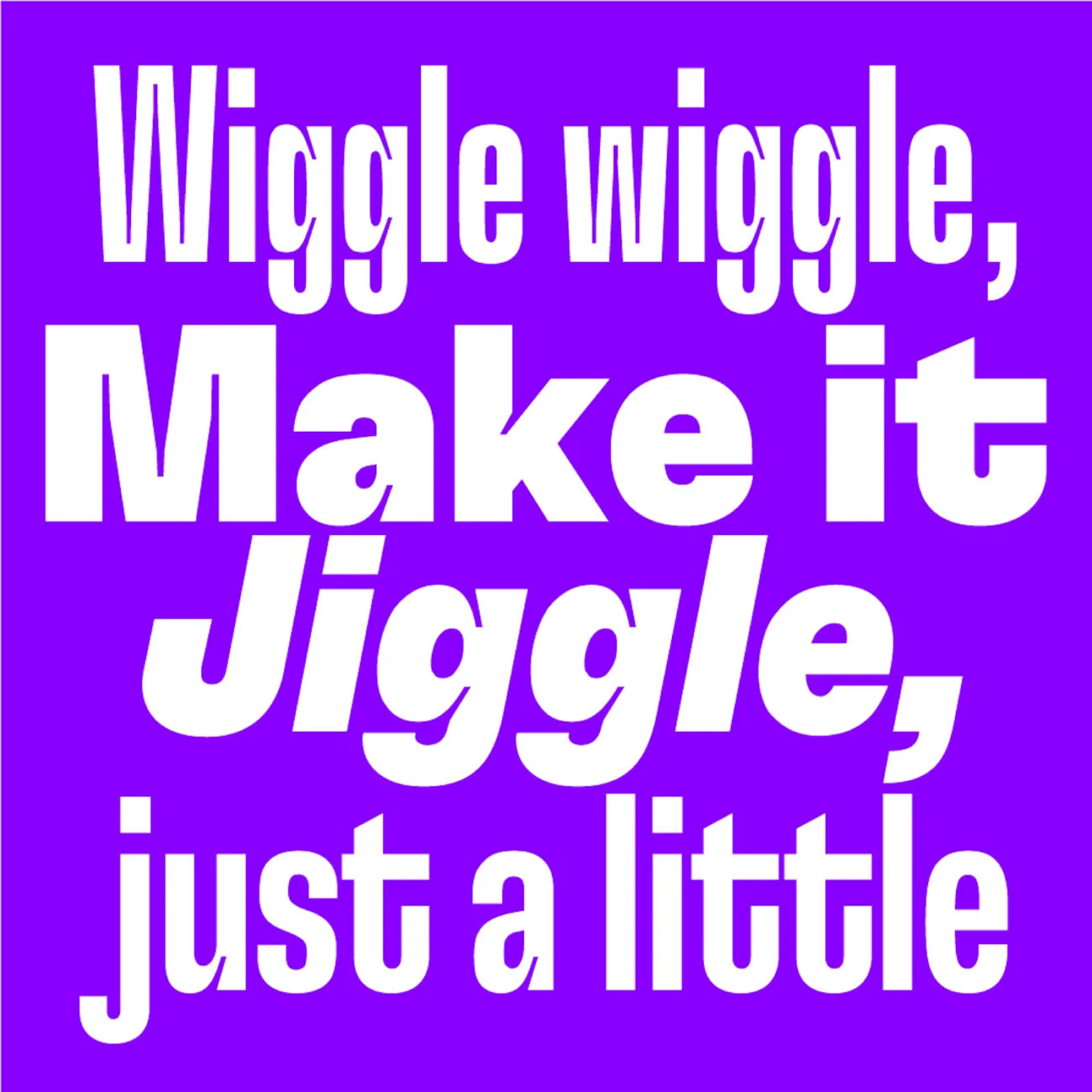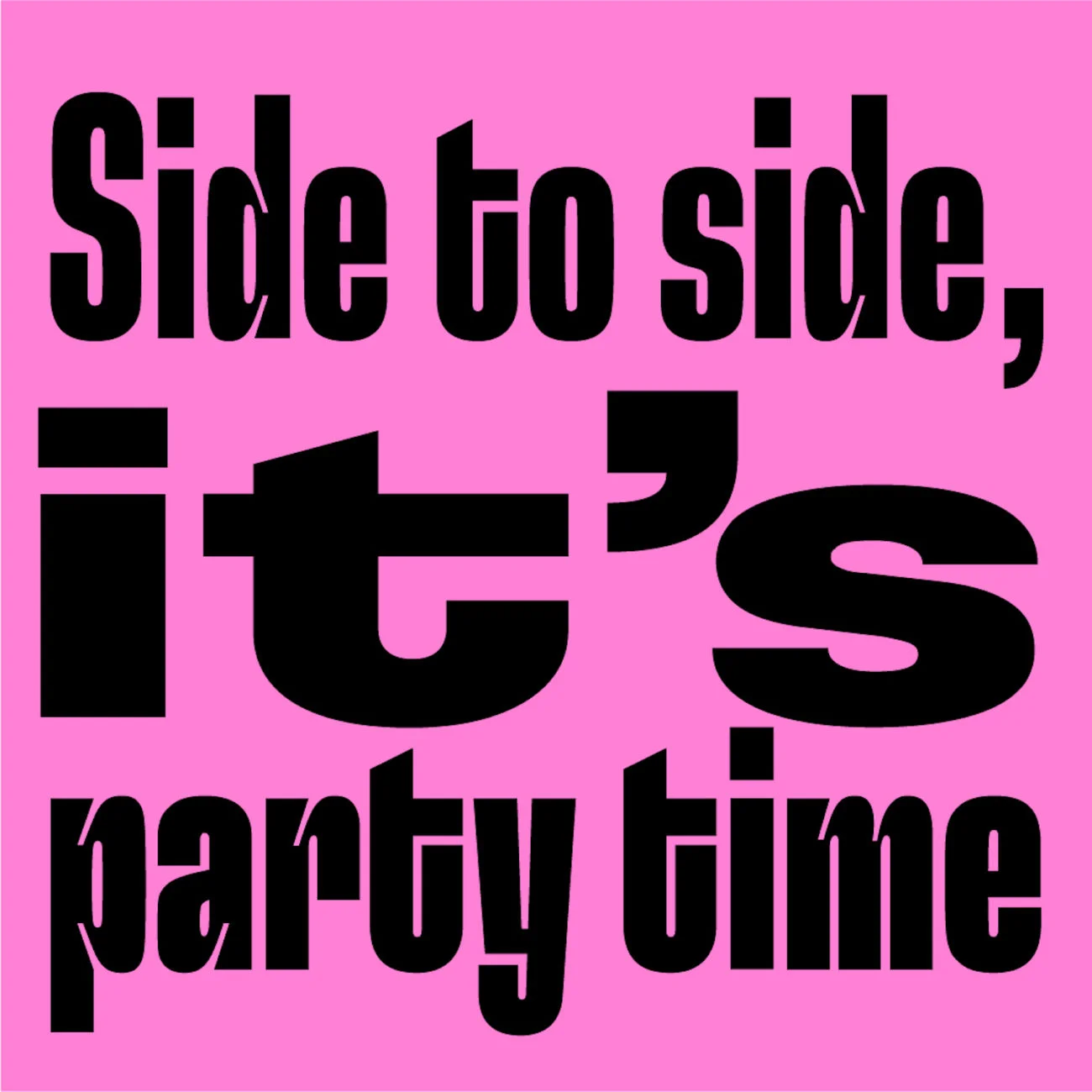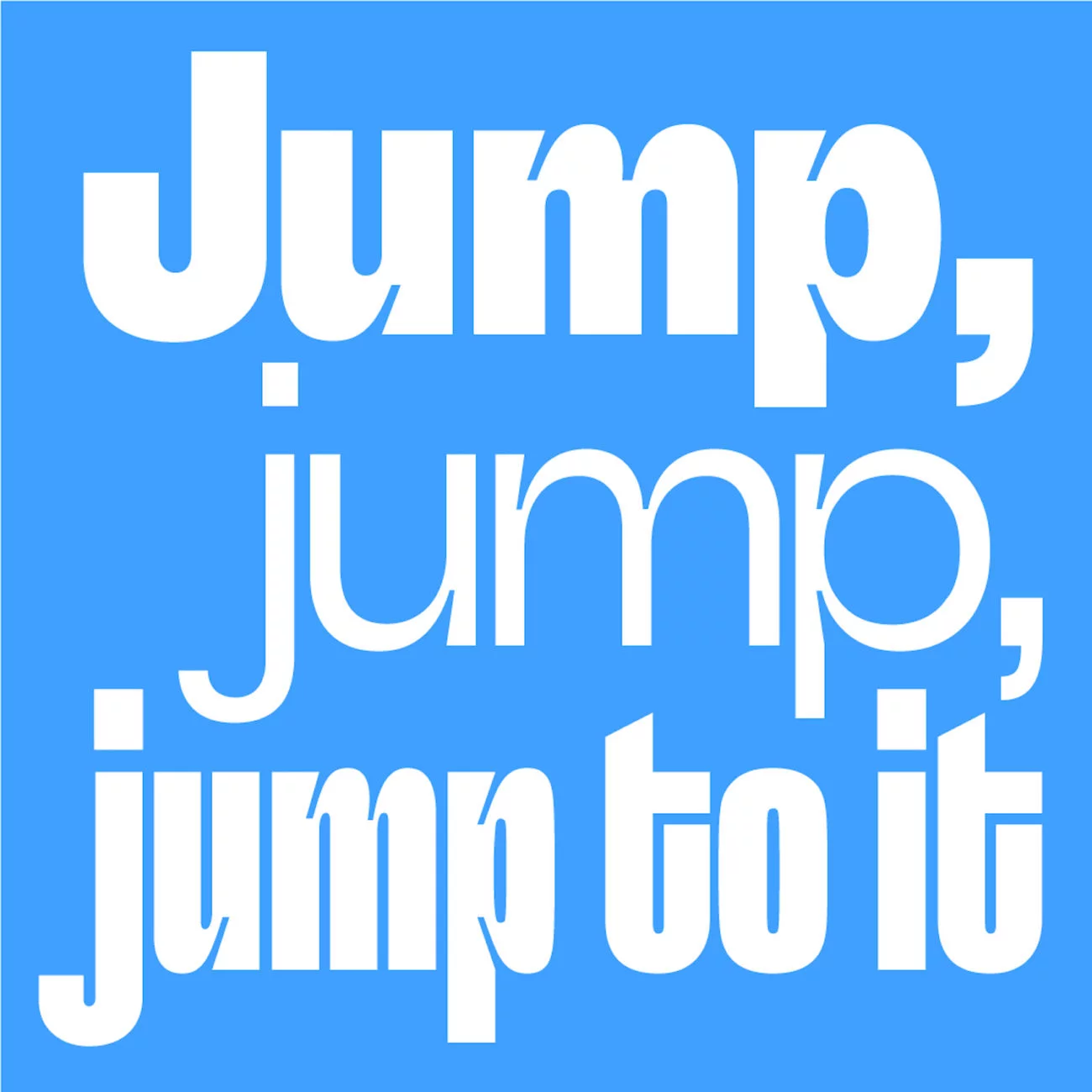
Offering a mix of original retail and custom fonts, Grilli Type (@grillitype) is an independent Swiss type foundry founded by Noël Leu and Thierry Blancpain in late 2009. Since, the founders have been joined by Reto Moser, Lind Haugaard, and Tobias Rechsteiner and often work in collaboration with other designers and creatives, too. Their latest release, a robust yet flexible grotesk with bags of character, GT Flexa, offers the fluidity and interactivity for a dynamic, joyful and responsive experience of typesetting; fitting a wide range of purposes and various aesthetic scenarios.
Designed by Dominik Huber with Marc Kappeler (2015 – 2020) and published by Grilli Type in July 2020, GT Flexa ‘embraces the idea of a fluid design space’, as opposed to ‘the traditional view of a typeface as a collection of static styles’. Aligned with this, the foundry describes GT Flexa as a ‘dynamic tool’. And you can totally understand why. The typeface’s variability means that GT Flexa is able to take on multiple personas and has a distinct yet malleable character; its design space running along 3 axes – Weight, Width and Italic. The delicate, perfectly formed ink traps and simple, fluid shapes mean the typeface flows spaciously and responsively in many different design spaces.
The attention to detail in GT Flexa means that it holds itself confidently and with charisma across the board in its many forms. ‘Design decisions down to the smallest details are guided by simple principles’, Grilli explain, an example of which you can see in the tightening of the letterforms when moving from the wide to narrow styles. This transition sees the ink traps brought up deeper into the body of the glyph and the terminals looping round to bring the shape together; minimising the counter space to allow for balance in the narrower kerning.
Simplicity is the definitive element in GT Flexa’s appearance, driving the overarching tone of the typeface and knitting the shapes together across their various styles. ‘The design pieces together simple shapes with minimal refinement and limited stroke contrast’, the foundry explain, ‘the resulting raw build gives it both personality and the necessary sturdiness to perform in even its most extreme states.’
With maximum variability, basic and extended Latin, full punctuation and OpenType Feature Alternatives, GT Flexa is a grotesk for every occasion. It’s fluidity allows for compositional playfulness and hyper-responsive typesetting; offering the kind variety and possibility we can only hope to see even more of in the future! To check out more from Grilli Type, check out their website and Instagram.